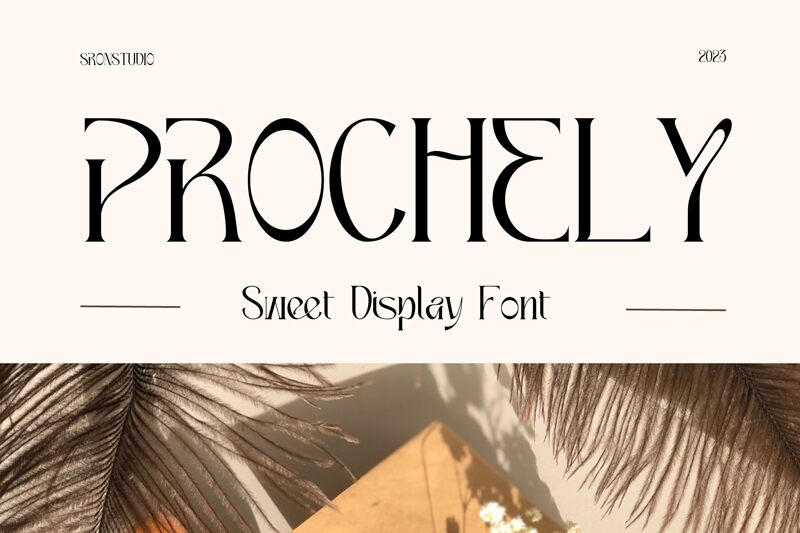
PROCHELY
Prochely font is a stunning display font with artistic features by Sronstudio. It is sophisticated and stylish with a balanced overall shape to make it an attractive choice for creative projects. Its classy appearance and condensed build work together for extraordinary visuals in any of its potential uses.
Use Prochely in invitation cards, branding, advertisements, magazine layouts, brochure designs, social media posts, greeting cards, clothing brand logos, headlines or subheadings in website design. Get your artistic concepts done wonderfully with this free display font.